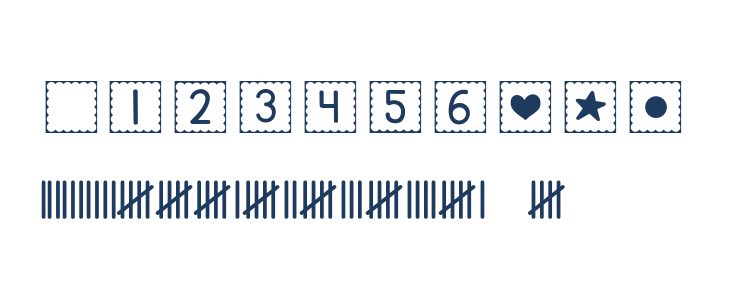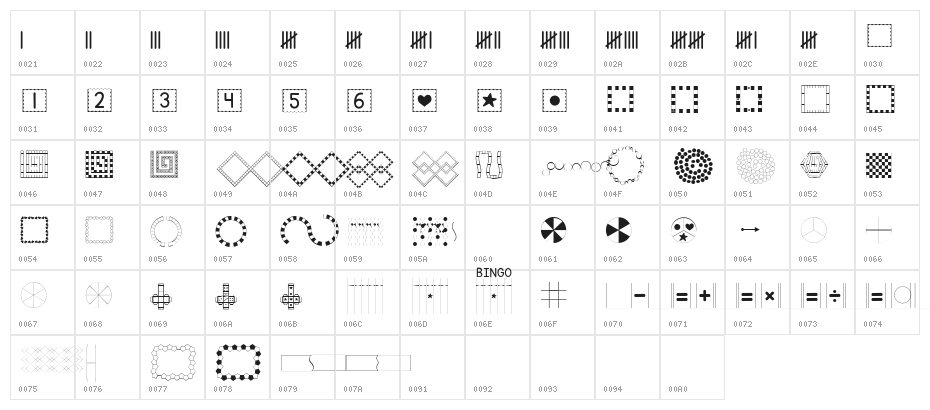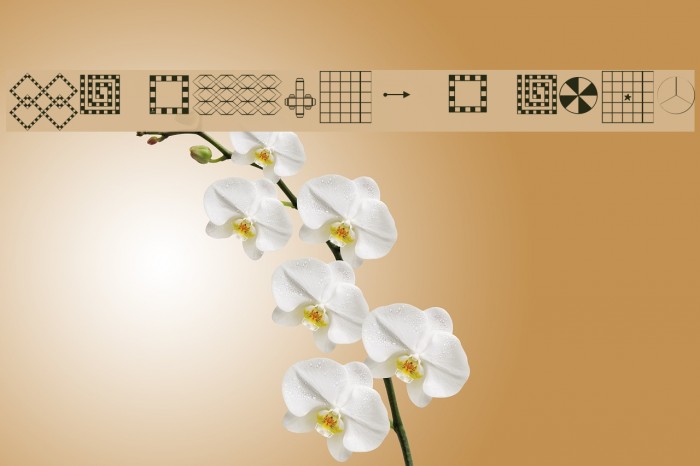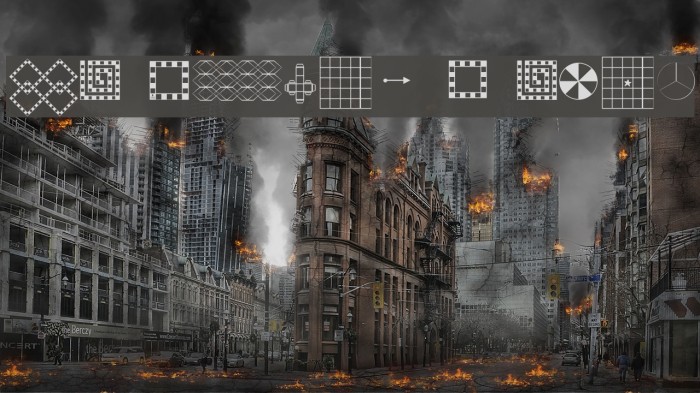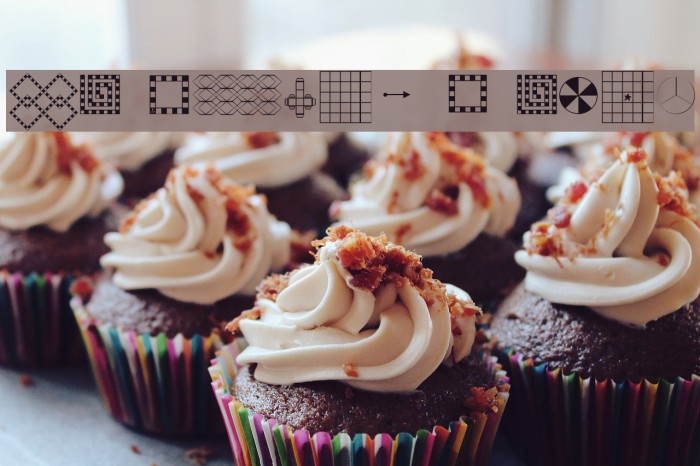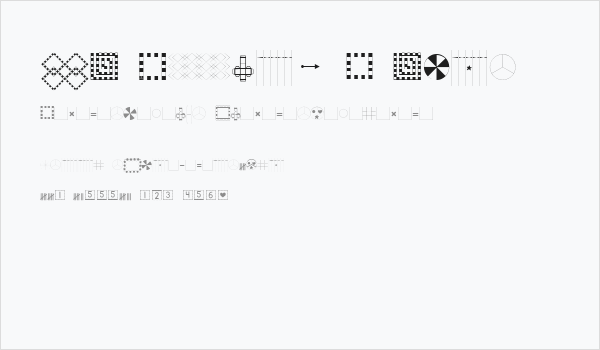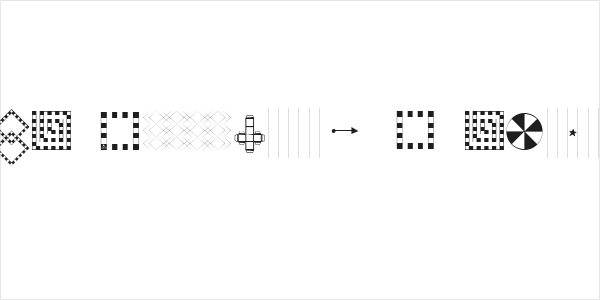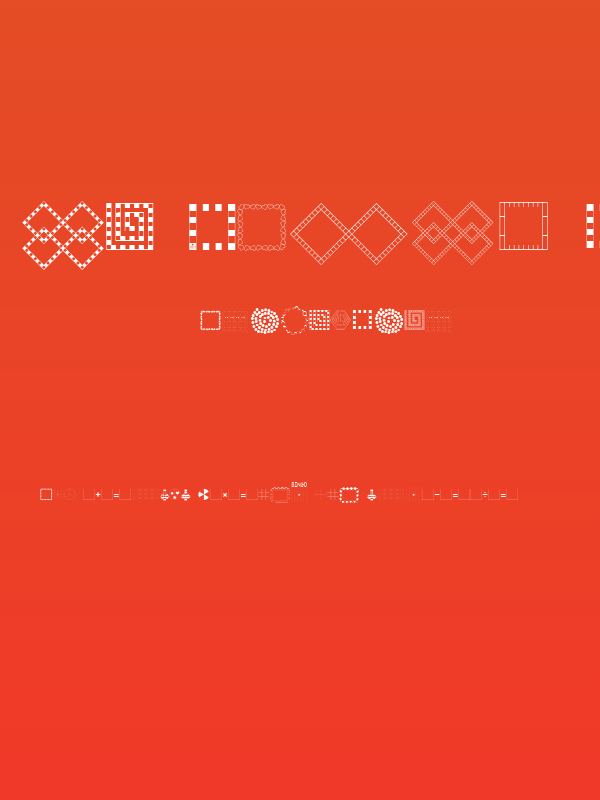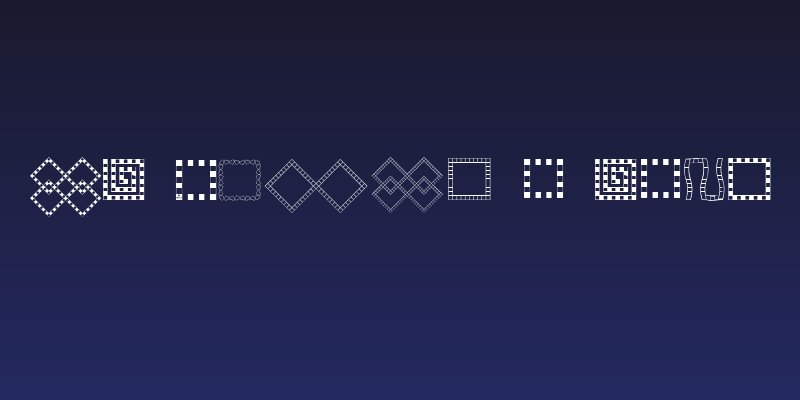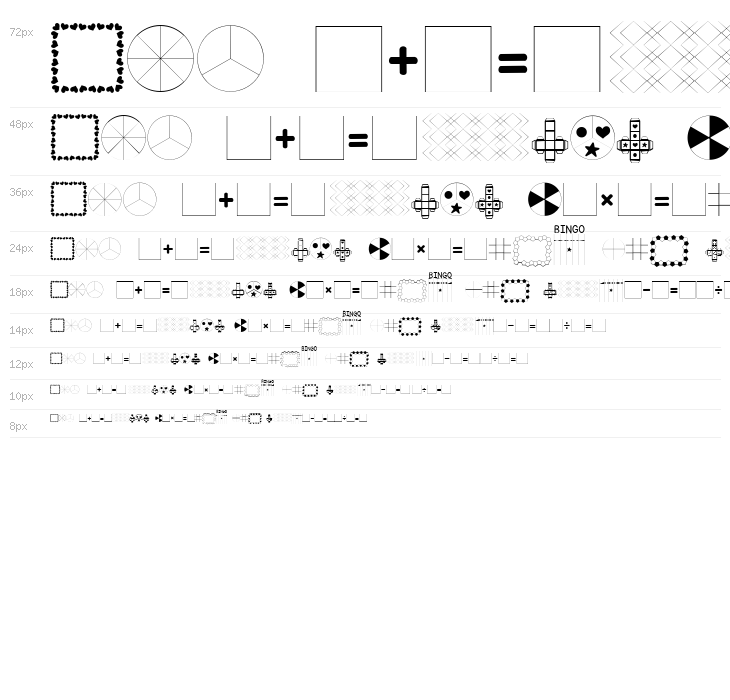
KG Build A Game Font
KG Build A Game Description
A playful, decorative font composed of various board game-inspired symbols, geometric shapes, grids, counters, and tally marks, with each character represented by a unique game-related icon or motif. The style is highly illustrative and thematic, focusing on visual elements from classic tabletop games.
| Overall Style | Decorative, Playful, Thematic |
| Use Case | Headlines, Logos, Themed graphics, Educational games |
| Proposed Projects | Board game packaging, educational materials, children's party invitations, playful branding, classroom resources. |